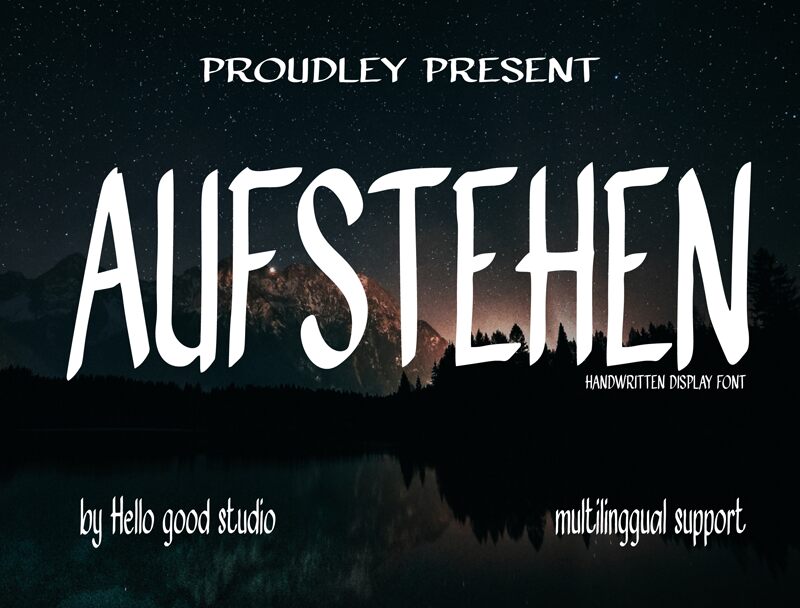
AUFSTEHEN
Aufstehen font by Studio Hello Good is a condensed, irregular, and hand-drawn free handwritten font with an overall playful appearance. The rustic organic charm of its irregular strokes makes Aufstehen a one-of-its-kind expressive style typography typeface. It is created from organic shapes that come together beautifully to embody a casual vibe.
The font will therefore be perfect for typography ideas expressing the same personality. Beyond branding design and packaging design labels, the font can be used in advertising campaigns through various media forms including printed posters, flyers, and billboards as well as online on websites and social media networks.